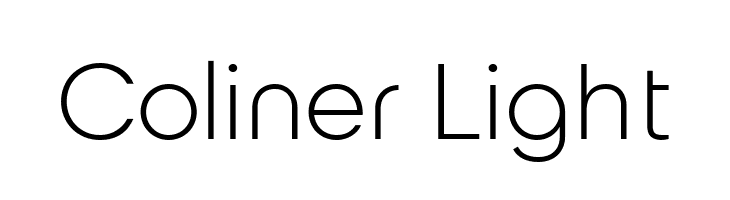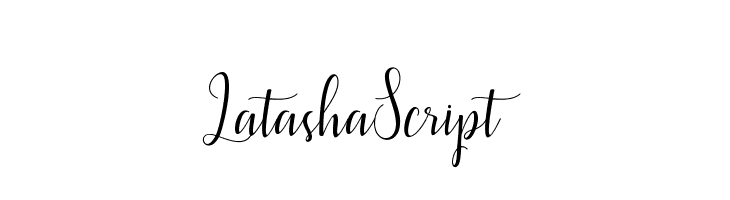
A graceful script font with elegant loops and high contrast strokes.
A bold, adventurous font with strong, angular lines and a rugged style.
A fluid and elegant script font with a natural handwritten style.
A bold, dynamic font with thick, slanted strokes for a strong, energetic look.
A playful, hand-drawn font with a rustic and whimsical style.
A bold, intricate blackletter-style font with gothic and medieval influences.
An ornate and decorative font with intricate uppercase and outlined lowercase letters.
A playful, rounded font with smooth curves and consistent stroke width.
A modern, artistic font with flowing lines and a playful yet sophisticated style.
A playful, rough-textured font with a spooky, hand-drawn style.